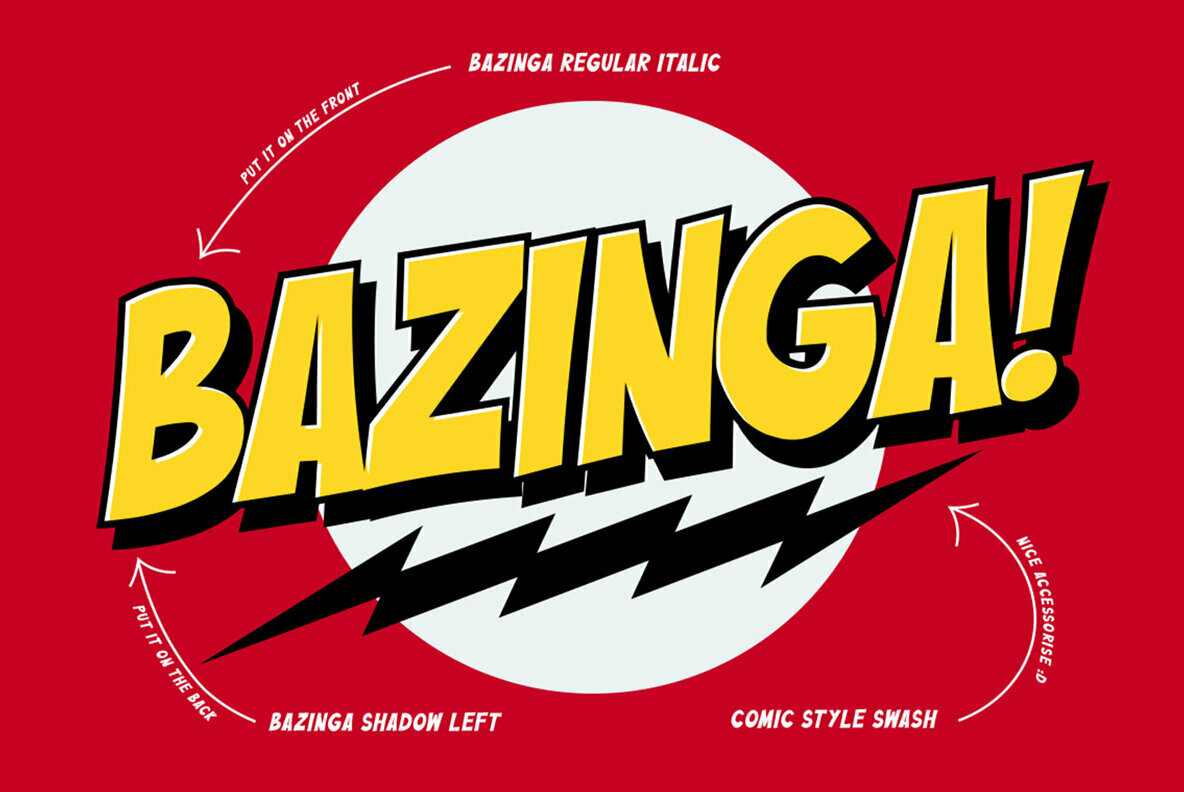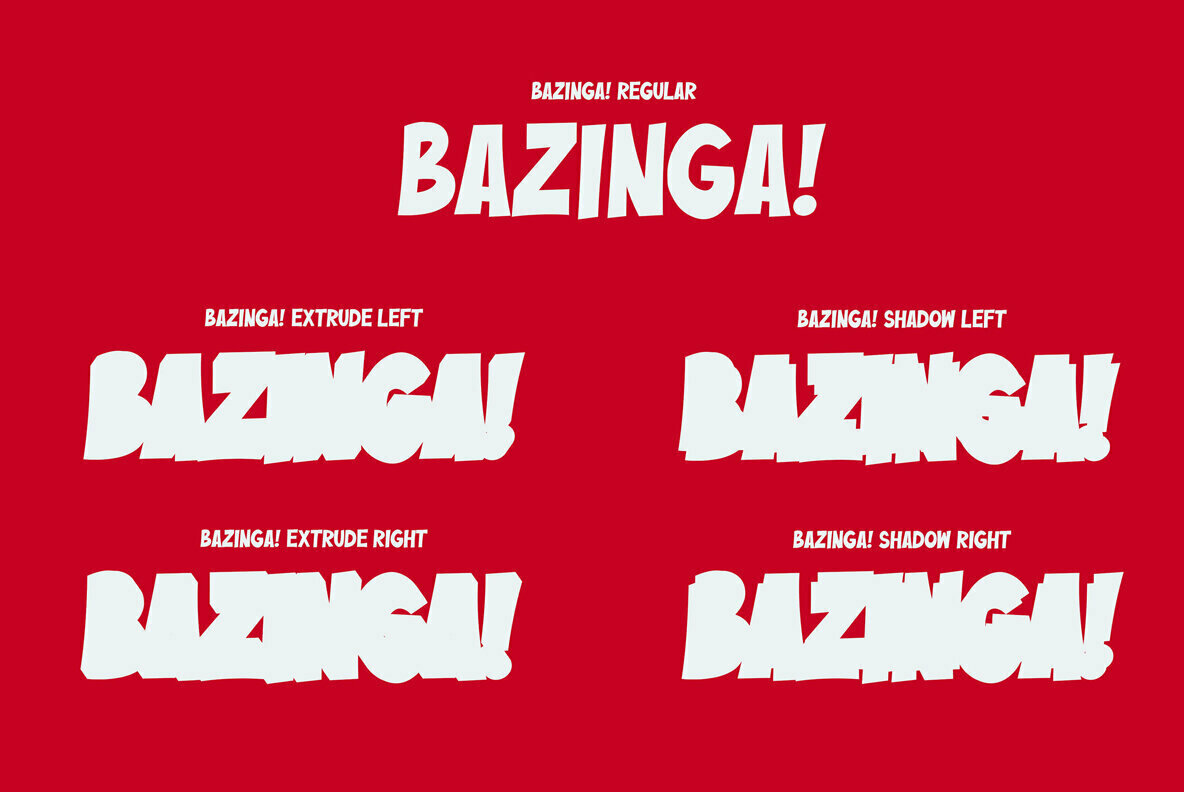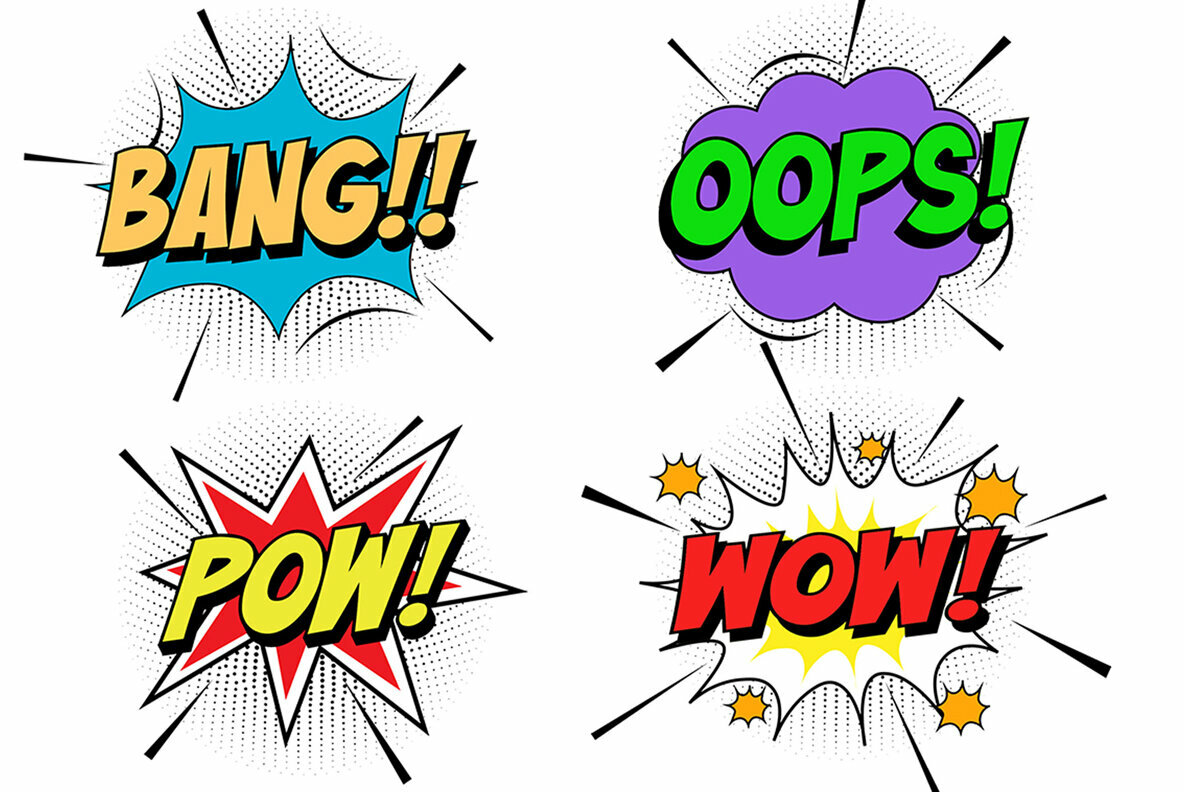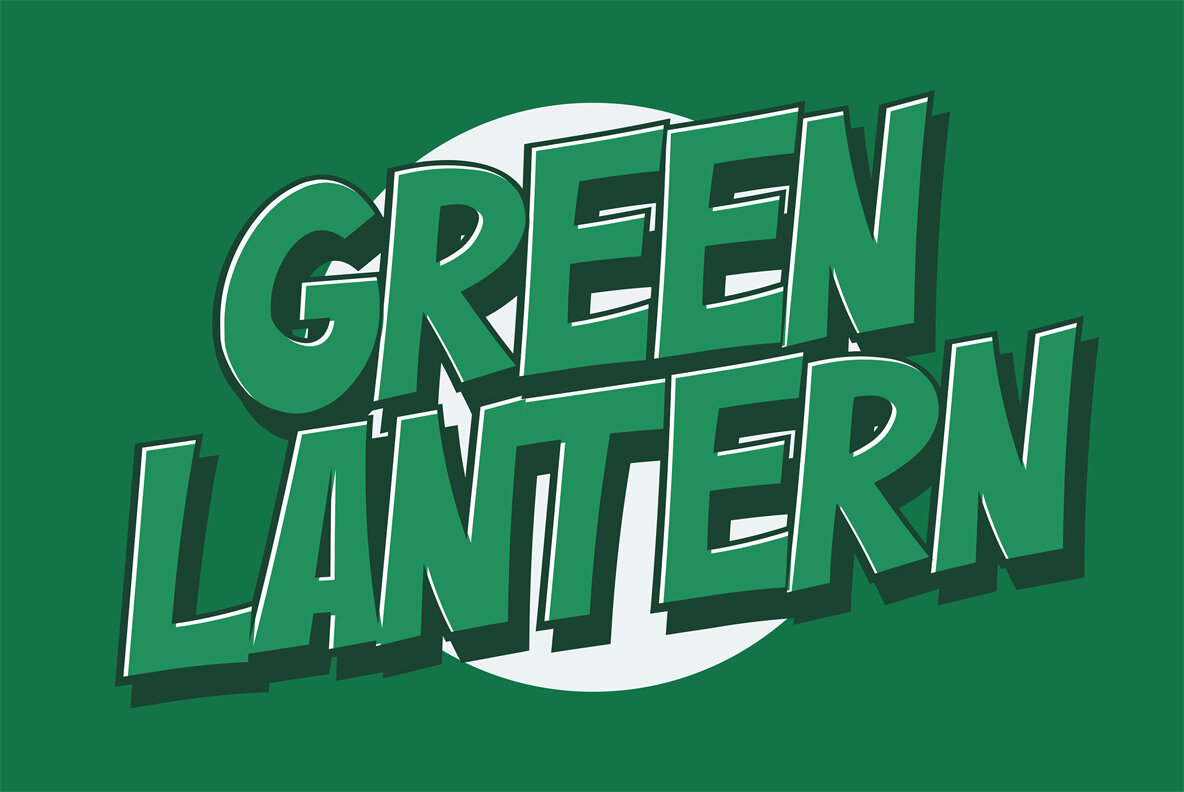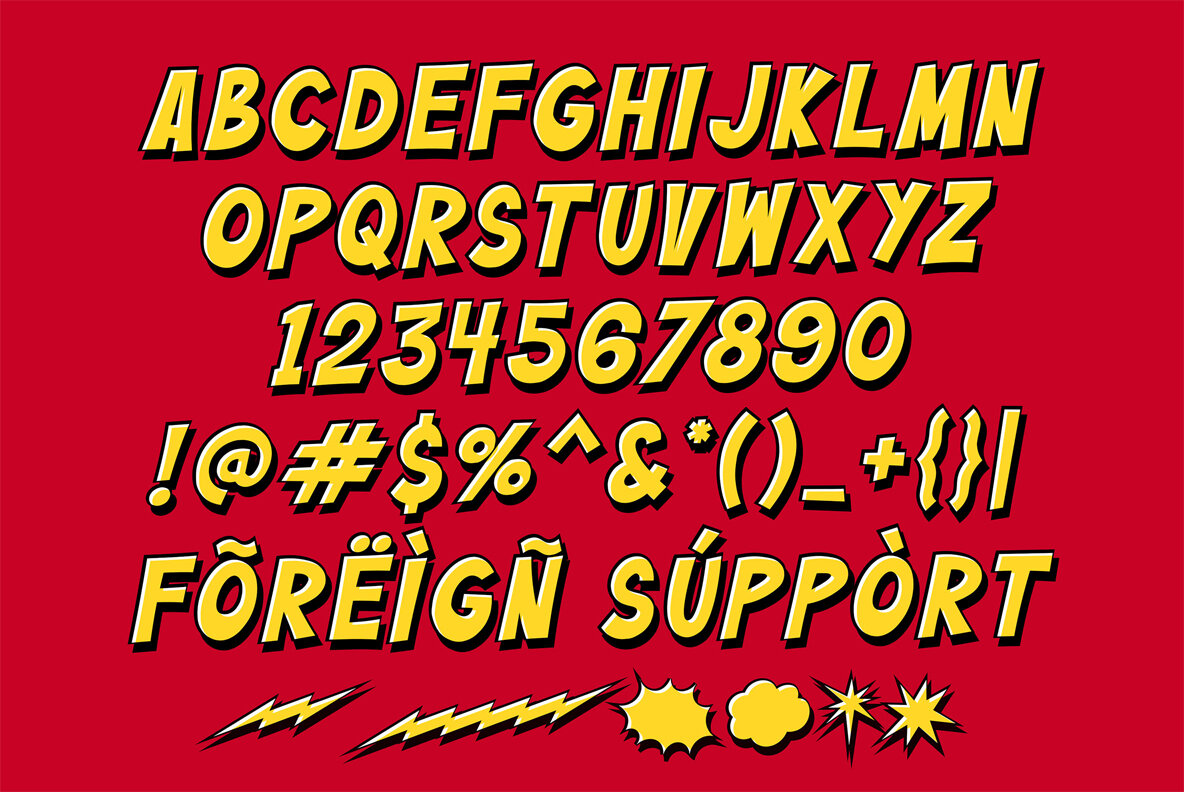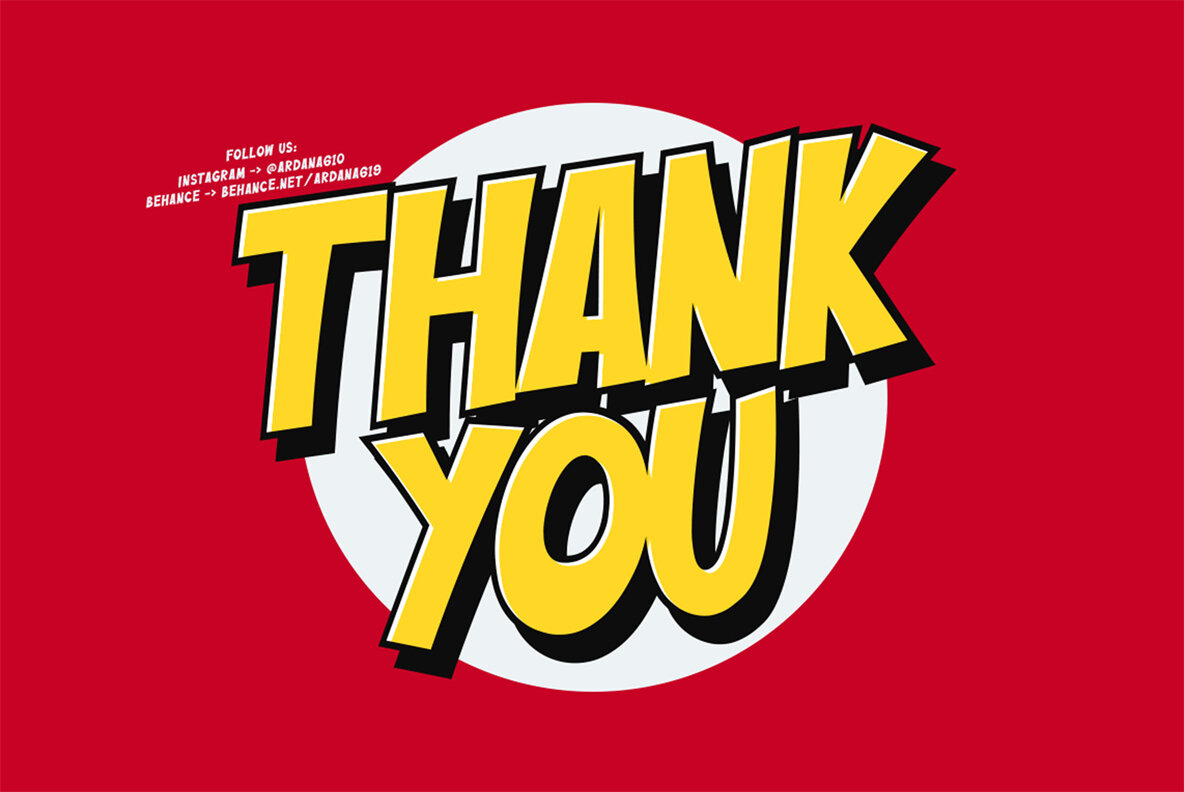
Bazinga Font
Bazinga Regular
Bazinga Regular Italic
Bazinga Extrude Left
Bazinga Extrude Left Italic
Bazinga Extrude Right
Bazinga Extrude Right Italic
Bazinga Shadow Left
Bazinga Shadow Left Italic
Bazinga Shadow Right
Bazinga Shadow Right Italic
Drawing inspiration from a beloved catchphrase, Bazinga brings a vibrant comic book flair to any project. This font excels in adding a whimsical touch to your visual content, perfect for comical quotes, labels, and poster designs.Bazinga: Layered Comic Book Style Font